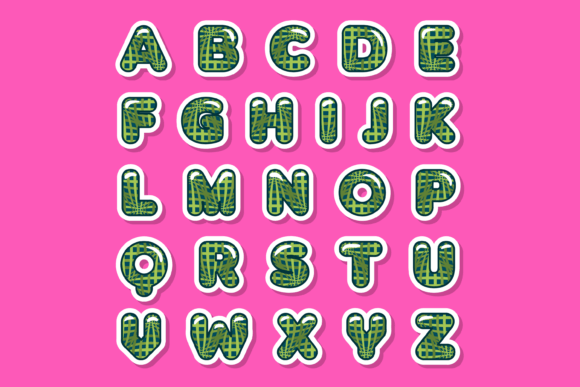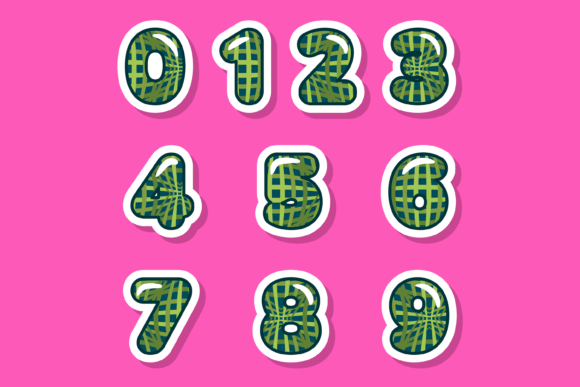
Introduction to Fiber Mesh Font
Do you ever find yourself stuck in a creative rut, searching for the perfect design element to elevate your next project? I know I do. That’s why I’m excited to share with you one of my favorite design resources: the Fiber Mesh Font. This stunning color font is a game-changer for anyone looking to add a unique touch to their work.
Whether you’re a seasoned designer or a crafty DIY enthusiast, the Fiber Mesh Font is an invaluable resource for any creative project. Its high-quality design and transparent background make it perfect for custom designs, digital art, or even print materials. And the best part? It’s a free download, available for use in popular design software like PhotoShop and Illustrator.
With the Fiber Mesh Font, the possibilities are endless. From wedding invitations to social media graphics, this versatile design element is sure to inspire your next creative project. In this article, we’ll dive deeper into the world of this amazing font and explore its many uses.
Key Features of Fiber Mesh Font
- High-quality design resource ideal for creative projects, offering a unique and modern aesthetic.
- Transparent background, allowing for seamless integration into various design elements.
- Unique Fiber Mesh design, providing a distinctive and eye-catching visual effect.
Honest Review: Fiber Mesh Font
What works well is the high-quality design of the font. It’s perfect for creative projects that require a modern and edgy look. The transparent background also makes it easy to customize and blend with other design elements.
Some of the key features of the Fiber Mesh Font include:
- High-quality design with a modern and edgy look
- Great for creative projects that require a unique look
However, I did notice that the font might not be suitable for projects that require a lot of subtlety or fine details. The design can be quite bold and eye-catching, so it’s best used in projects where you want to make a statement.
Overall, I’m impressed with the Fiber Mesh Font and I think it’s a great addition to any designer’s library. It’s perfect for designers who want to add a modern and edgy touch to their creative projects.
How to Use Fiber Mesh Font
The Fiber Mesh Font is a high-quality, versatile design resource perfect for creative projects. With a transparent background, it can be easily integrated into various design tools.
Tips for Getting the Most Out of Fiber Mesh Font
To get the most out of Fiber Mesh Font, experiment with different font sizes, colors, and combinations to create unique and eye-catching designs.
Fiber Mesh Font is ideal for:
- Infographics and data visualizations
- Logo designs and branding materials